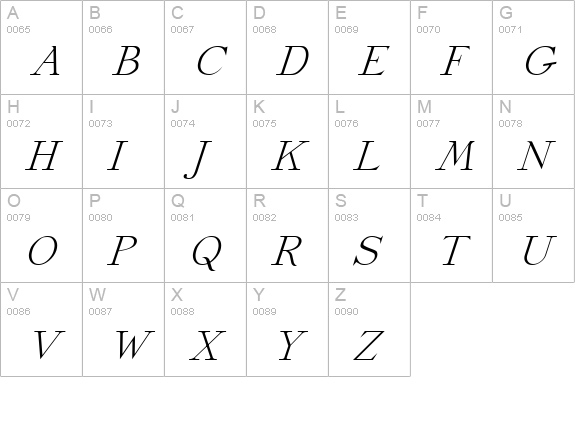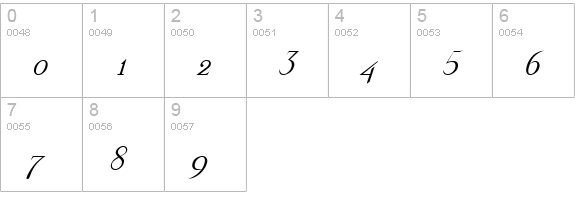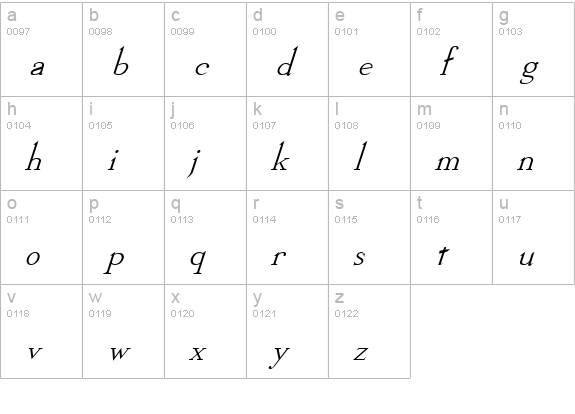
Dickens Italic is a distinctive, italic variant in the Dickens typeface family \xE2\x80\x94 well suited to design and typography projects.
Introducing Dickens Italic, a timeless and elegant font that exudes sophistication and charm. With its delicate curves and graceful slant, Dickens Italic is perfect for adding a touch of refinement to any project. Whether you are designing wedding invitations, crafting a logo, or creating a stunning poster, this font will elevate your work to the next level. What's even better is that Dickens Italic is available for free download at FontsMarket.com. That's right, you can enjoy the beauty and versatility of this exquisite font without spending a dime. Don't miss out on this opportunity to enhance your designs with the classic beauty of Dickens Italic. Download it now and let your creativity soar!